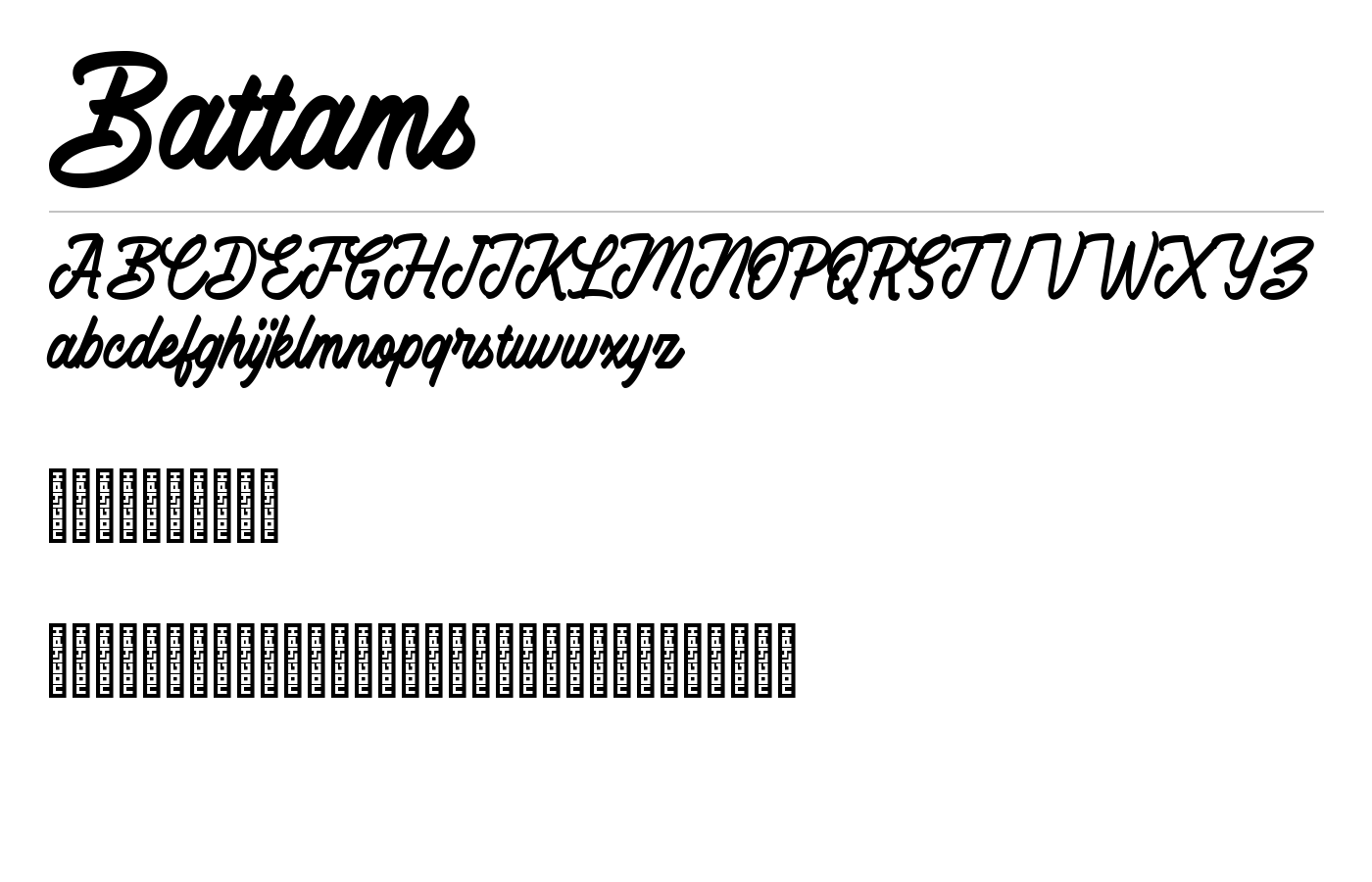
Battams is a bold, cursive script font that combines a friendly and dynamic personality with clear legibility. Its smooth, rounded strokes and slightly condensed letterforms give it a vintage feel while maintaining a fresh, approachable style, making it ideal for logos, branding, packaging, and headlines where a personal yet confident touch is desired. This font works well for designs that aim to convey warmth, creativity, and style with a classic script flair.
Battams Font
About Battams Font
| Font family | Battams Font |